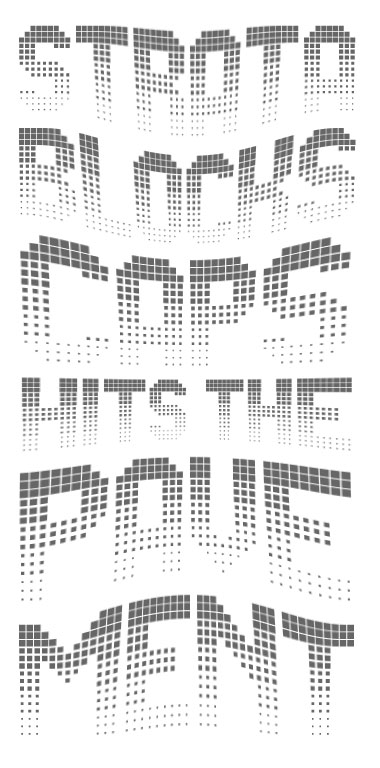
• I finally got around to upgrading Strata Blocks. I wasn't very happy with the lowercase letters, which could not show a full gradation (unless they had ascenders). And I felt that many characters could be improved, too. The result is Strata Blocks Caps, which boasts a full set of Basic Latin and More Latin characters.
Boring-looking samples need to be enhanced with Photoshop filters. ;-)
Not boring at all – Strata Blocks Caps looks great without Photoshop filters.